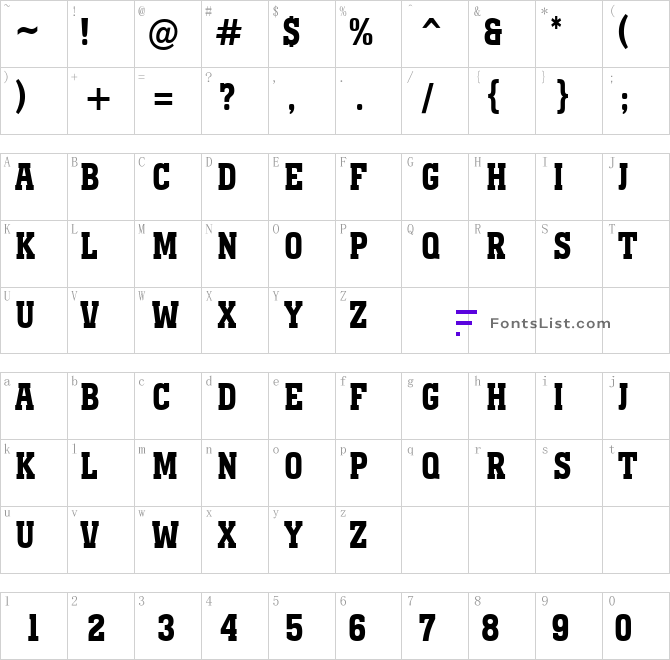
a_MonumentoTitulNr-Bold.ttf is a very beautiful artistic font, a_MonumentoTitulNr-Bold.ttf is widely used in the design and printing of various books and pictures,a_MonumentoTitulNr-Bold.ttf has a strong visual impact,a_MonumentoTitulNr-Bold.ttf is a commonly used font in newspapers, magazines and books, and is used in posters, e-commerce Poster design, store design, logo design, font design and other fields.a_MonumentoTitulNr-Bold.